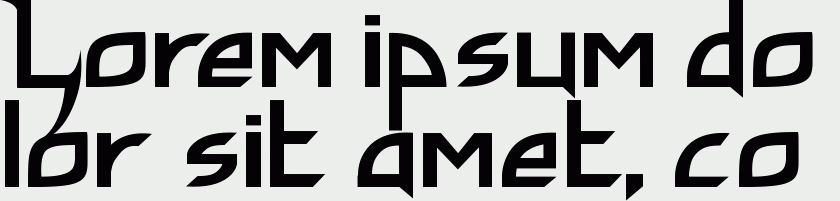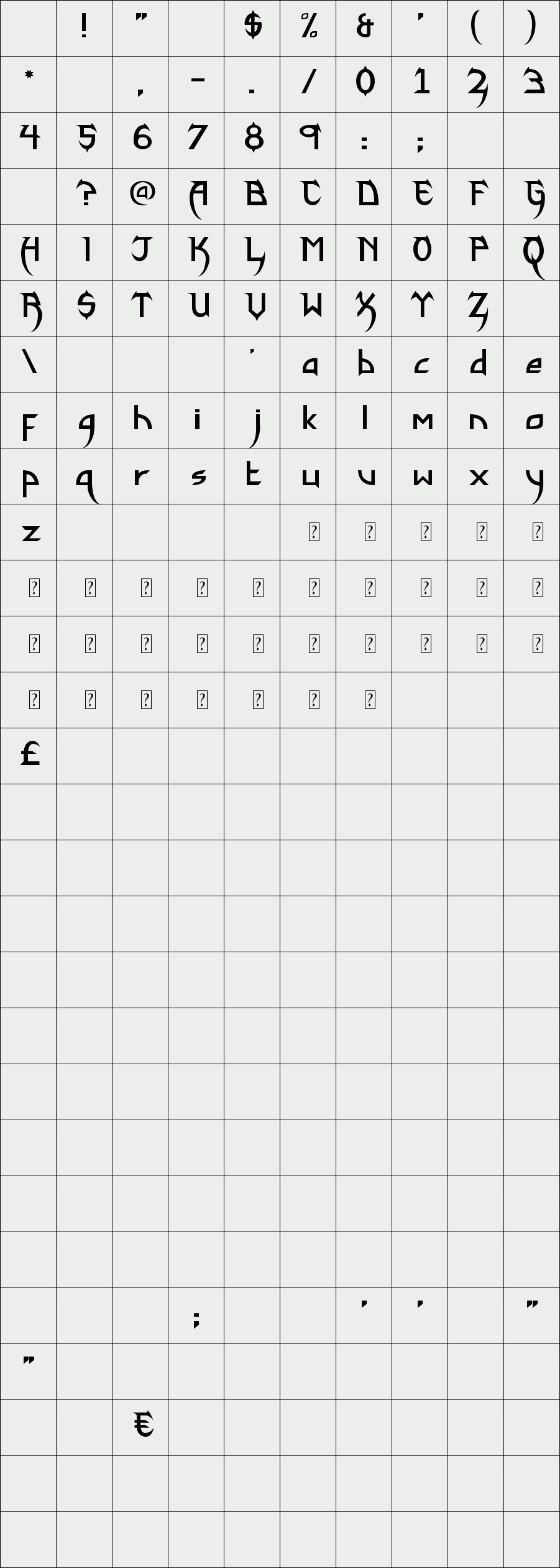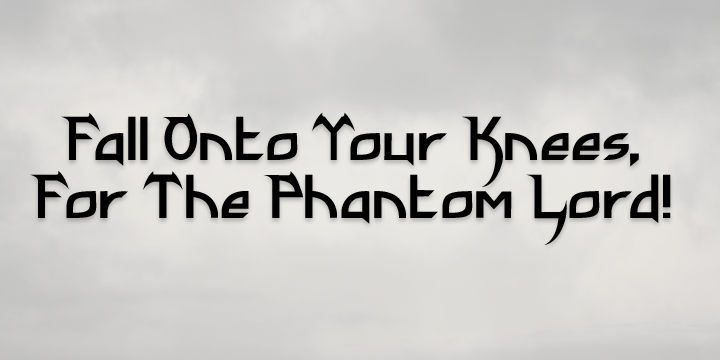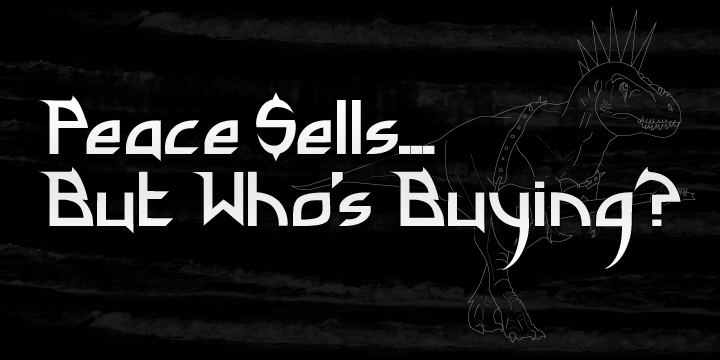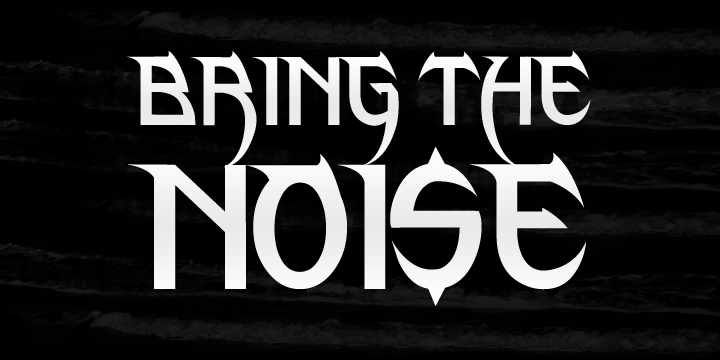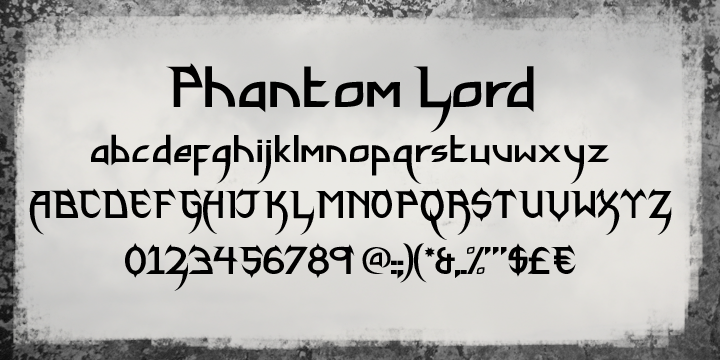
Phantom Lord
Inspired by thrash metal band logos. Ideal for creating a sense of speed and aggression to any project.
Ideal for metal bands, graphic novels, action films and video games.